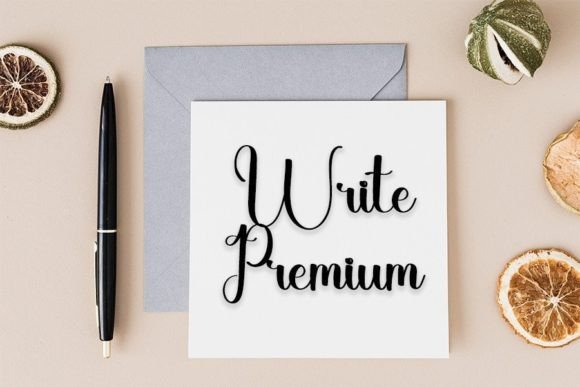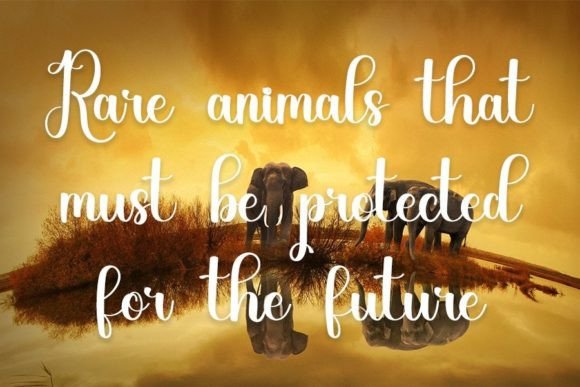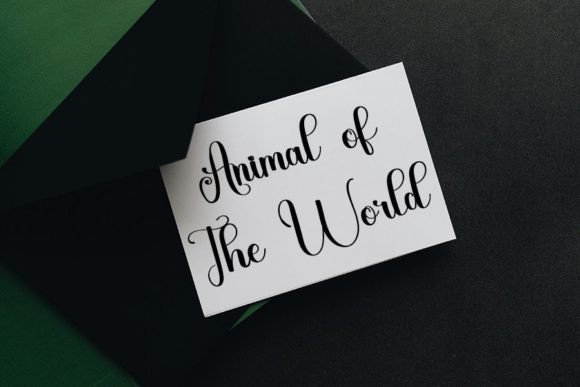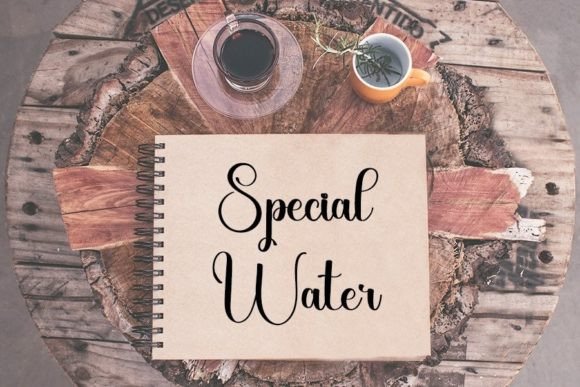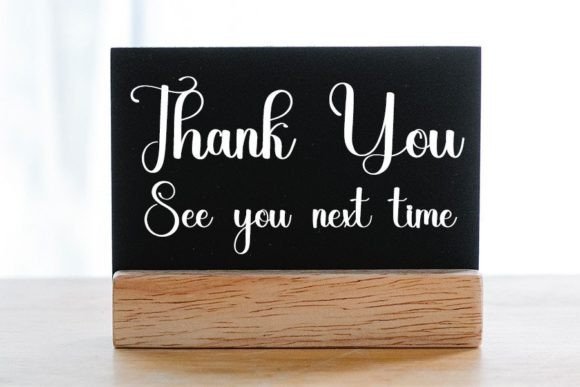
Introducing Animals Font: Elevate Your Designs with Timeless Elegance
Are you on the hunt for a font that exudes sophistication, elegance, and a touch of classic charm? Look no further than Animals Font, a stylish handwritten typeface that is sure to elevate your designs to new heights. Inspired by the timeless beauty of classic calligraphy, Animals Font brings a contemporary atmosphere to the table, making it perfect for designers and crafters looking to add a touch of refinement to their projects.
What Makes Animals Font Stand Out?
Animals Font is not just another font – it’s a masterpiece of modern calligraphy. With its impeccable form and balanced design, this font is sure to enhance the beauty of any project. Whether you’re working on a logo, a poster, a wedding invitation, or a packaging design, Animals Font is the perfect choice. Its versatility and elegance make it an excellent addition to any designer’s toolkit.
Key Features of Animals Font
- Balanced and Varied: The font features a balanced and varied design, ensuring that your text remains legible and visually appealing, even at smaller sizes.
- Contemporary Atmosphere: Animals Font brings a fresh, contemporary feel to your designs, making it perfect for modern projects that require a touch of sophistication.
- Timeless Classic Calligraphy: Inspired by timeless classic calligraphy, this font combines traditional elegance with modern flair, making it a versatile choice for a wide range of design applications.
Why Choose Animals Font for Your Projects?
There are countless reasons why Animals Font should be your go-to choice for your design projects. Here are just a few:
- Elegance and Sophistication: Animals Font adds a touch of elegance and sophistication to any project, making it perfect for designs that require a high level of refinement.
- Versatility: Whether you’re working on a digital project or a print design, Animals Font is versatile enough to shine in any medium.
- Unique and Memorable: Animals Font helps your designs stand out from the crowd, making them more memorable and engaging for your audience.
How to Use Animals Font in Your Designs
Using Animals Font in your designs is straightforward and easy. Here are some tips to get you started:
- Play with Sizes and Colors: Animals Font looks great at various sizes and in different colors. Don’t be afraid to experiment to find the perfect combination for your project.
- Pair with Complementary Fonts: For added visual interest, try pairing Animals Font with complementary fonts. Its classic elegance makes it a great match for a wide range of typefaces.
Animals Font is a stylish handwritten font that brings a touch of timeless elegance and contemporary sophistication to your designs. Its impeccable form, balanced design, and PUA encoding make it an excellent choice for designers and crafters looking to elevate their projects. Whether you’re working on a logo, a poster, or a packaging design, Animals Font is sure to enhance the beauty of your work and leave a lasting impression on your audience.